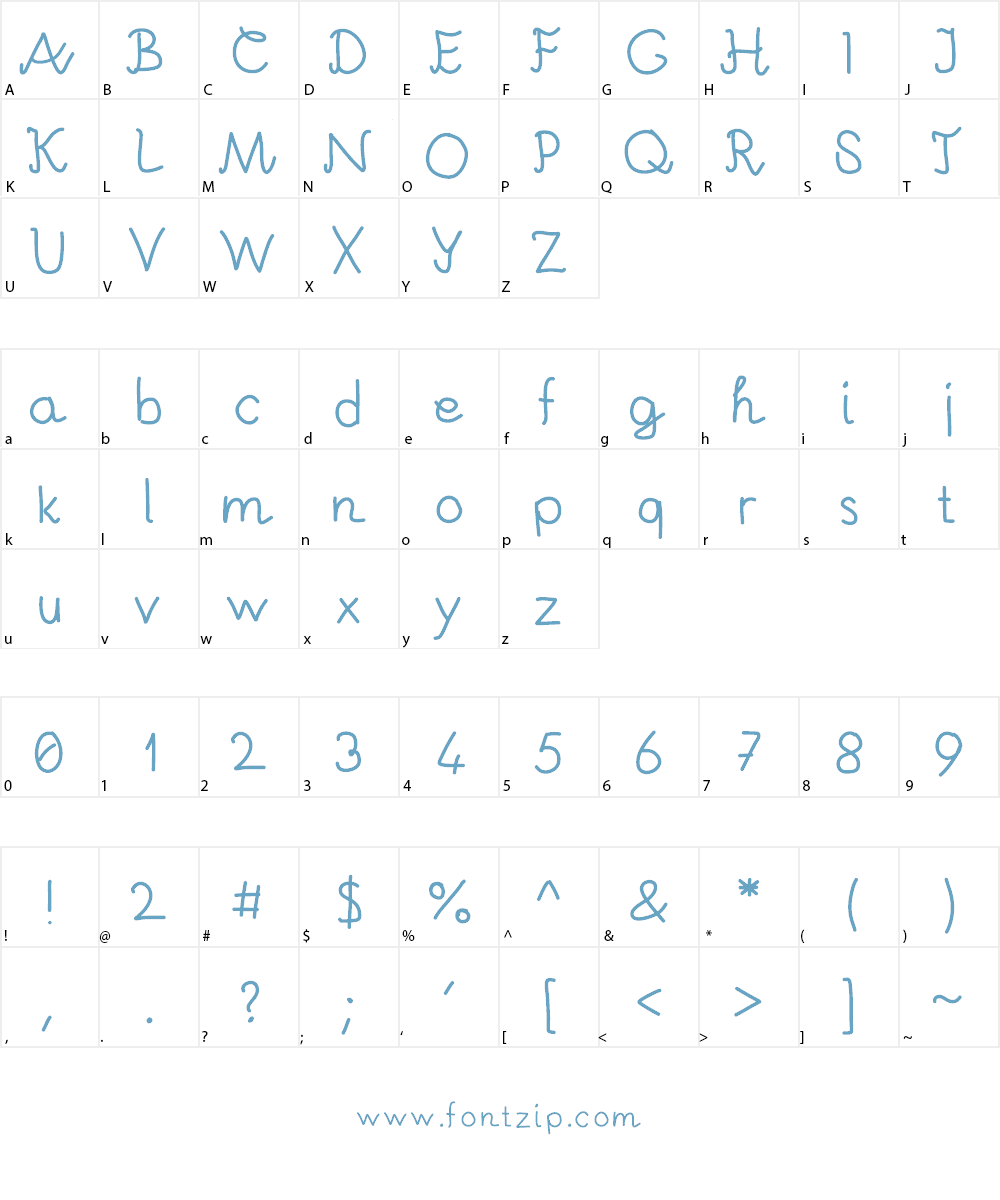
Andrei font is a free bold handwriting type that can be use to give a personal and comic touch to your designs. It contains 199 chars.
It is also my first try to design a type, so please don't be to harsh with the critics although these are more than welcome ;)